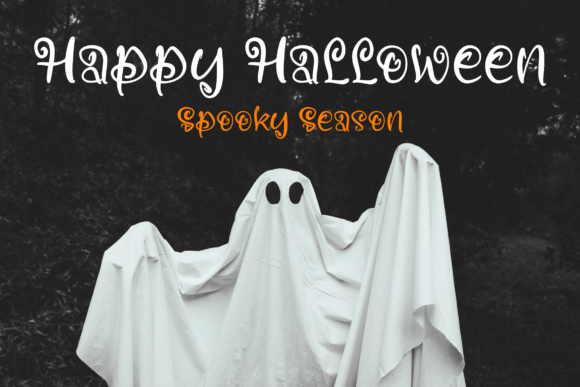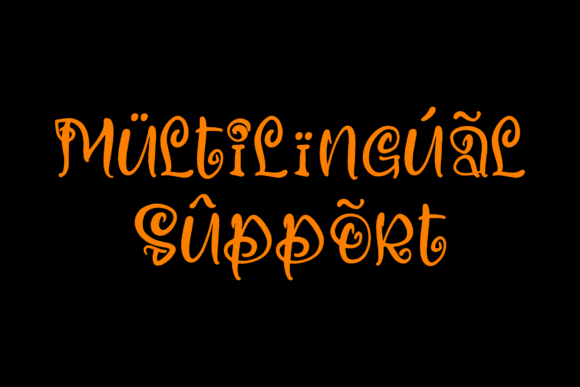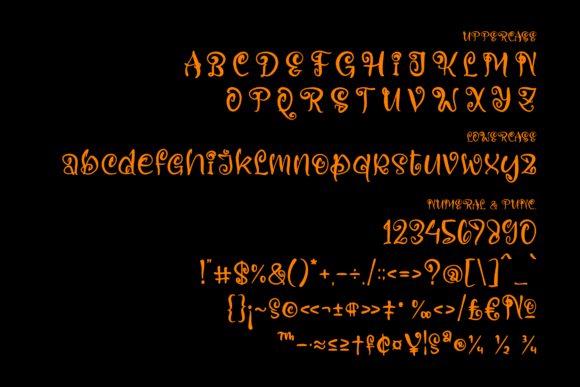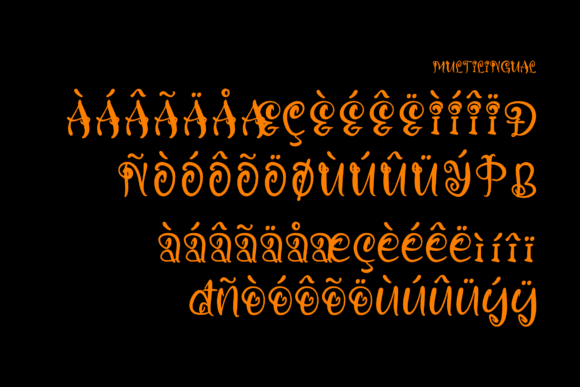
Haloking Creepy Font
About Haloking Creepy Font
Haloking Creepy – Quirky Halloween typeface, suitable for any projects such as logos, branding projects, homeware designs, product packaging, mugs, quotes, posters, shopping bags, t-shirts, book covers, name cards, invitation cards, greeting cards, labels, photography, watermark, special events, and all your other lovely projects that need a creepy script taste.